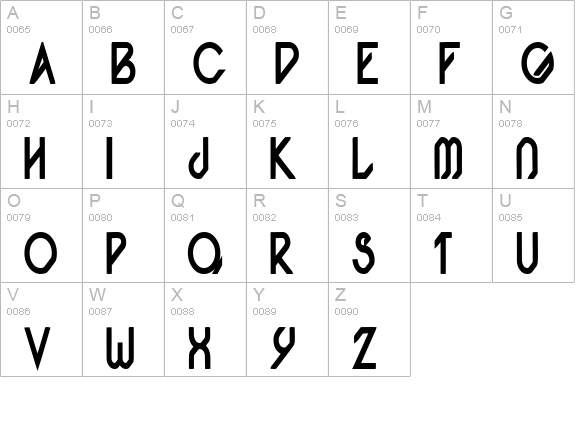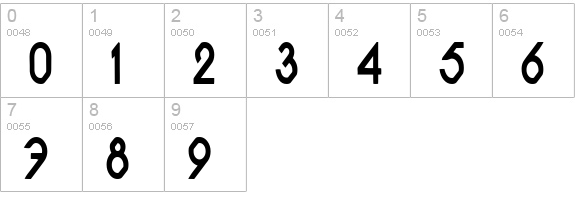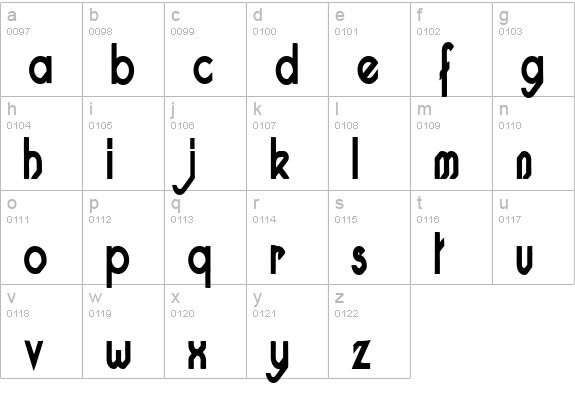
Pacotillenarrow bold Font Details
Pacotillenarrow bold is a strong, high-contrast variant in the Pacotillenarrow typeface family \xE2\x80\x94 well suited to headlines, attention-grabbing titles, and strong calls-to-action.
Pacotillenarrow is a stunning and elegant typeface that exudes sophistication and modernity. With its sleek and narrow design, this font is perfect for adding a touch of style to any project. Whether you are creating a logo, designing a website, or crafting a poster, Pacotillenarrow will elevate your work to new heights. What sets Pacotillenarrow apart is its versatility and readability, making it suitable for a wide range of design applications. Its clean lines and sharp edges give it a contemporary feel, while its bold presence commands attention and makes a statement. Best of all, Pacotillenarrow is **freely** available to download at FontsMarket.com. This means you can add this beautiful font to your collection without any cost, making it a valuable asset for any designer or creative professional. Don't miss out on the opportunity to enhance your projects with the timeless elegance of Pacotillenarrow. Download it today and see the difference it can make in your designs.